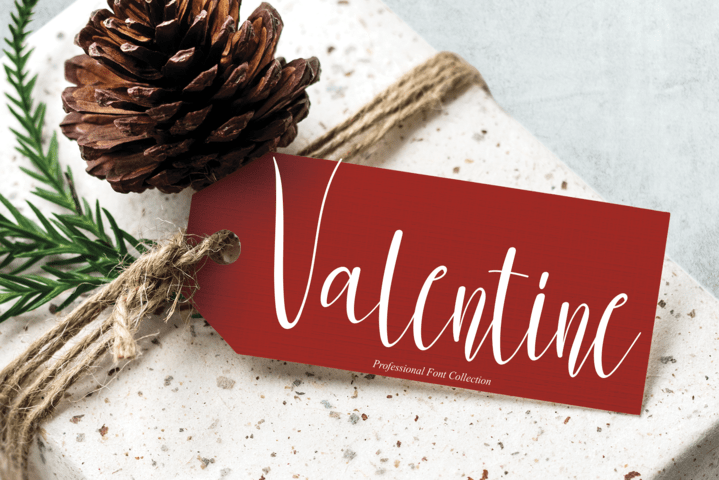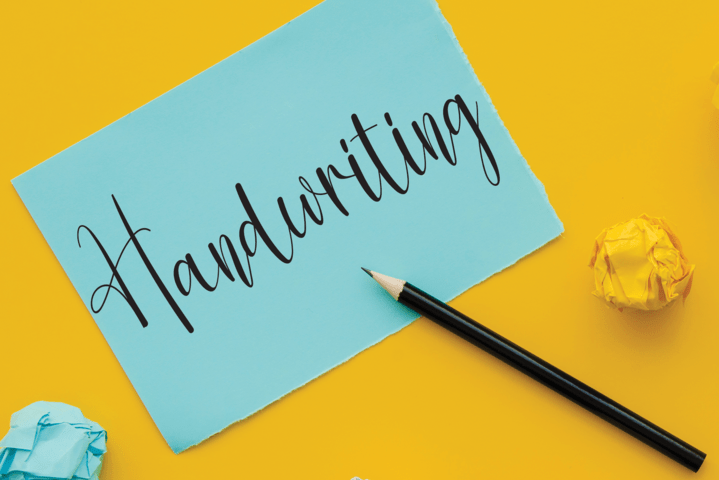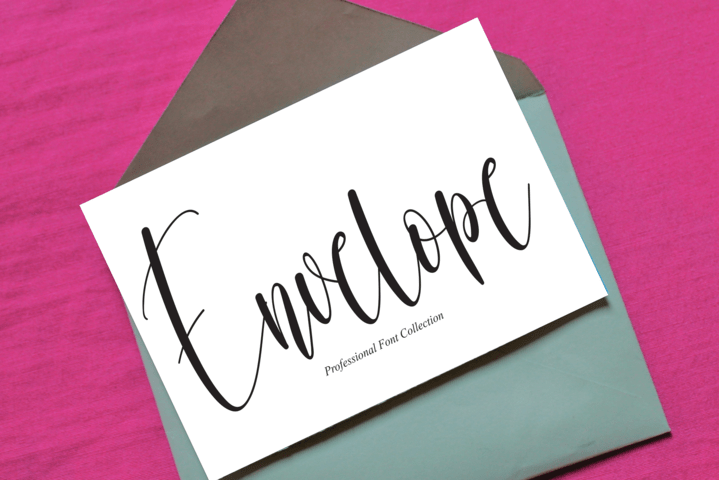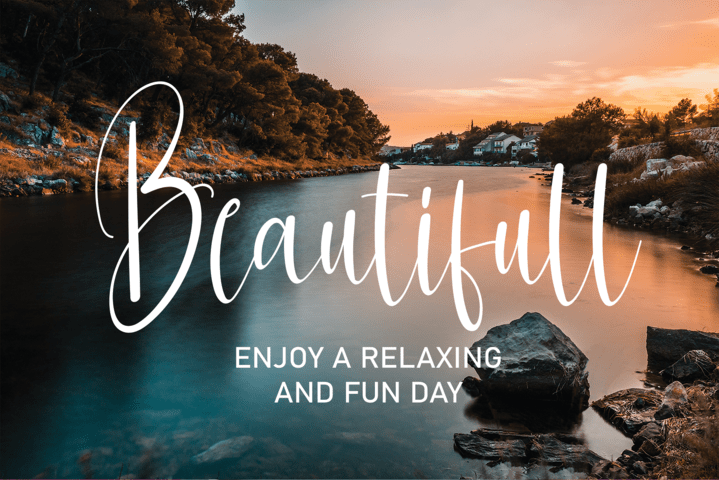
Samantha Font
Samantha Script Font
It’s a beautiful and refined script font. It has a classy, elegant and modern look that can be used for logos, branding, invitations, stationery, wedding designs, social media posts, and much more!